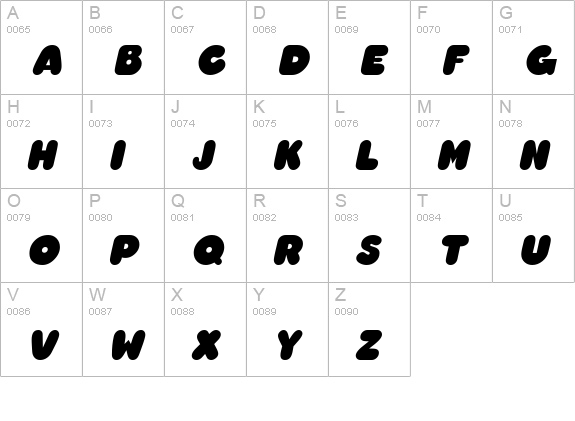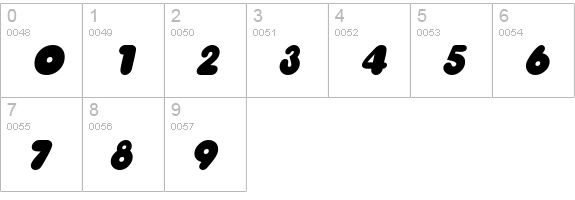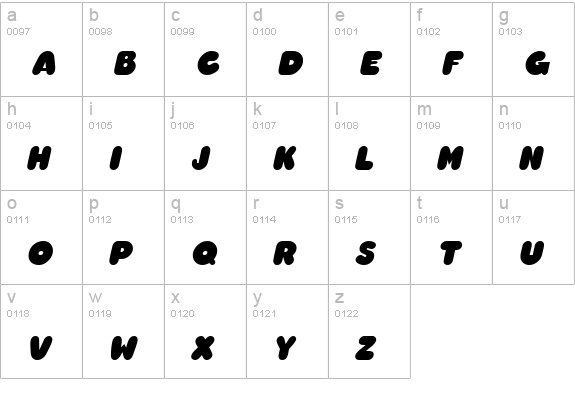
Chubby Italic Font Details
Chubby Italic is a distinctive, italic variant in the Chubby typeface family \xE2\x80\x94 well suited to design and typography projects.
Chubby Italic font is a delightful and charming typeface that exudes a sense of whimsy and playfulness. Its bold and rounded characters give off a cozy and inviting vibe, making it perfect for a variety of creative projects. Whether you're designing greeting cards, posters, or logos, Chubby Italic will add a touch of fun and personality to your work. The best part? Chubby Italic font is completely free to download at FontsMarket.com. This means you can easily add this charming typeface to your collection without breaking the bank. Don't miss out on the opportunity to enhance your designs with the unique and lovable Chubby Italic font - download it today and let your creativity shine!